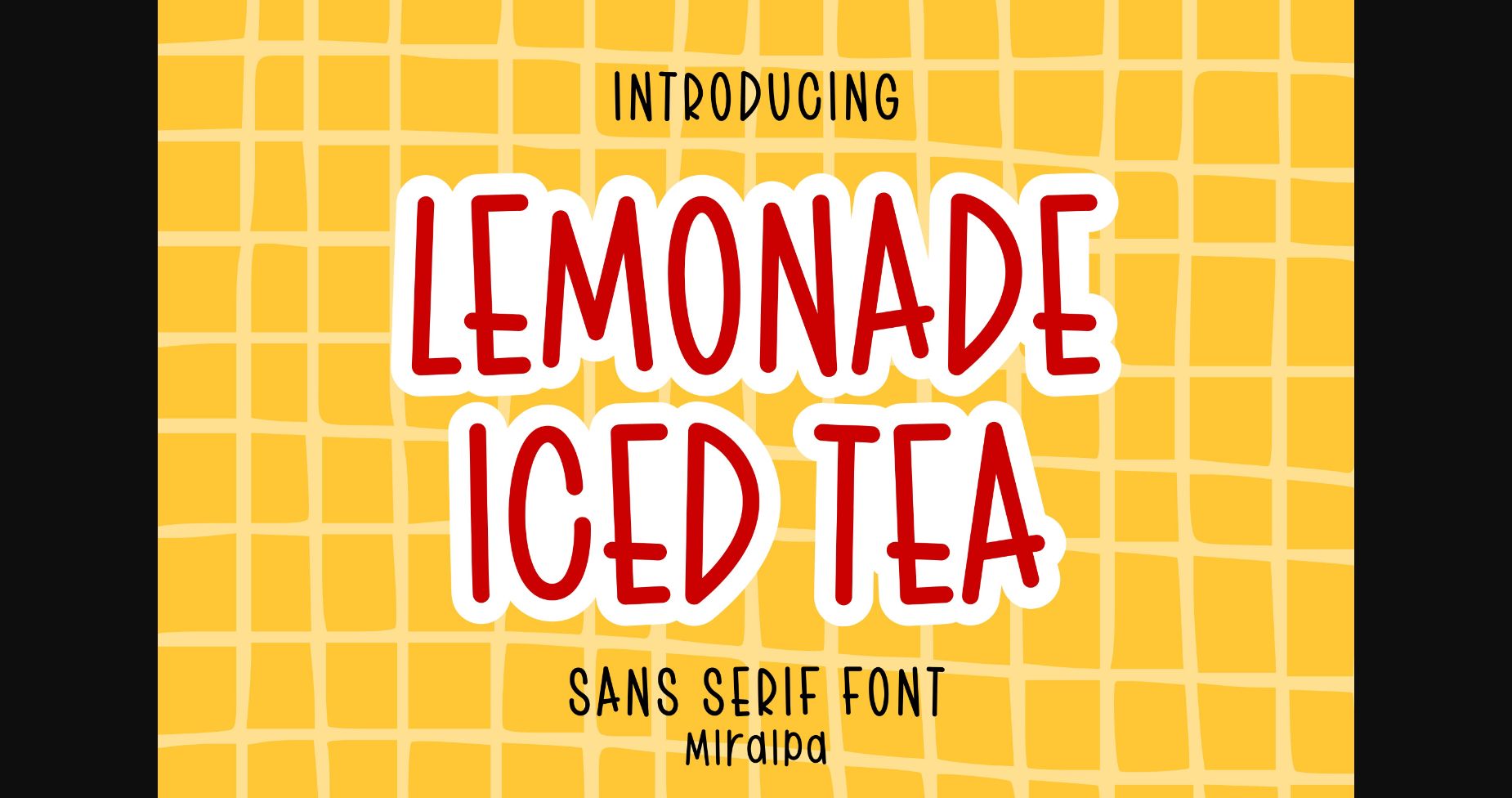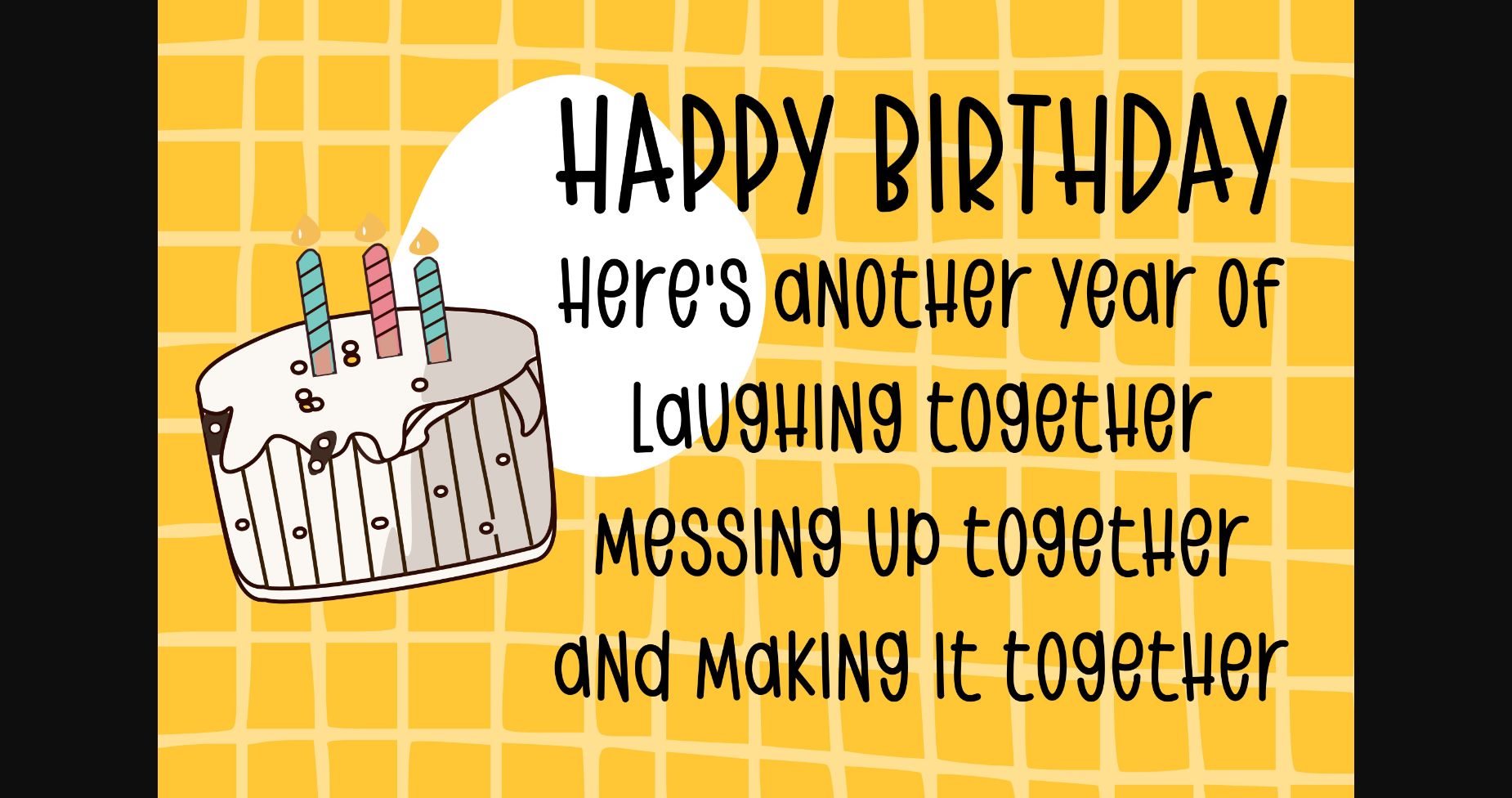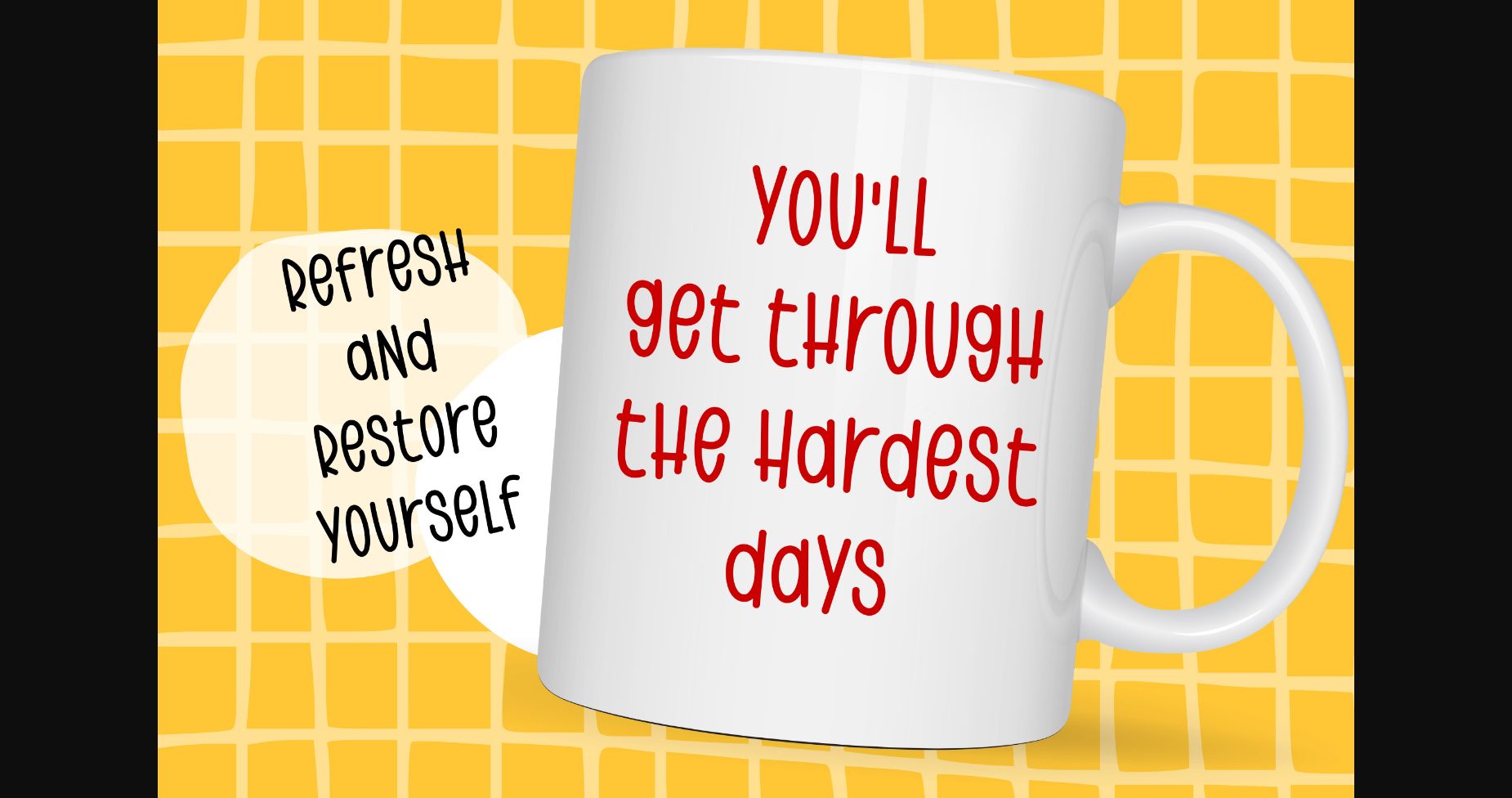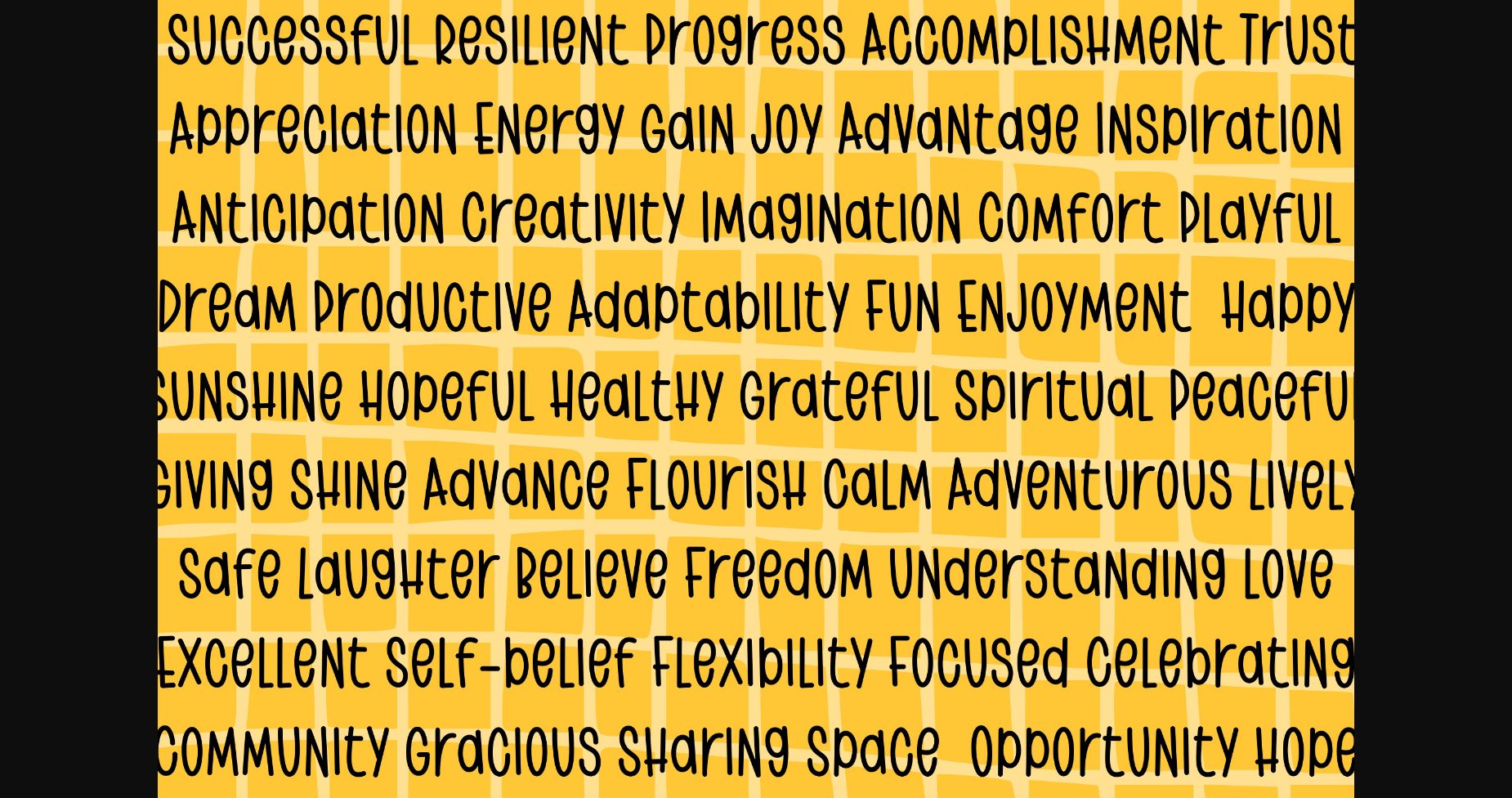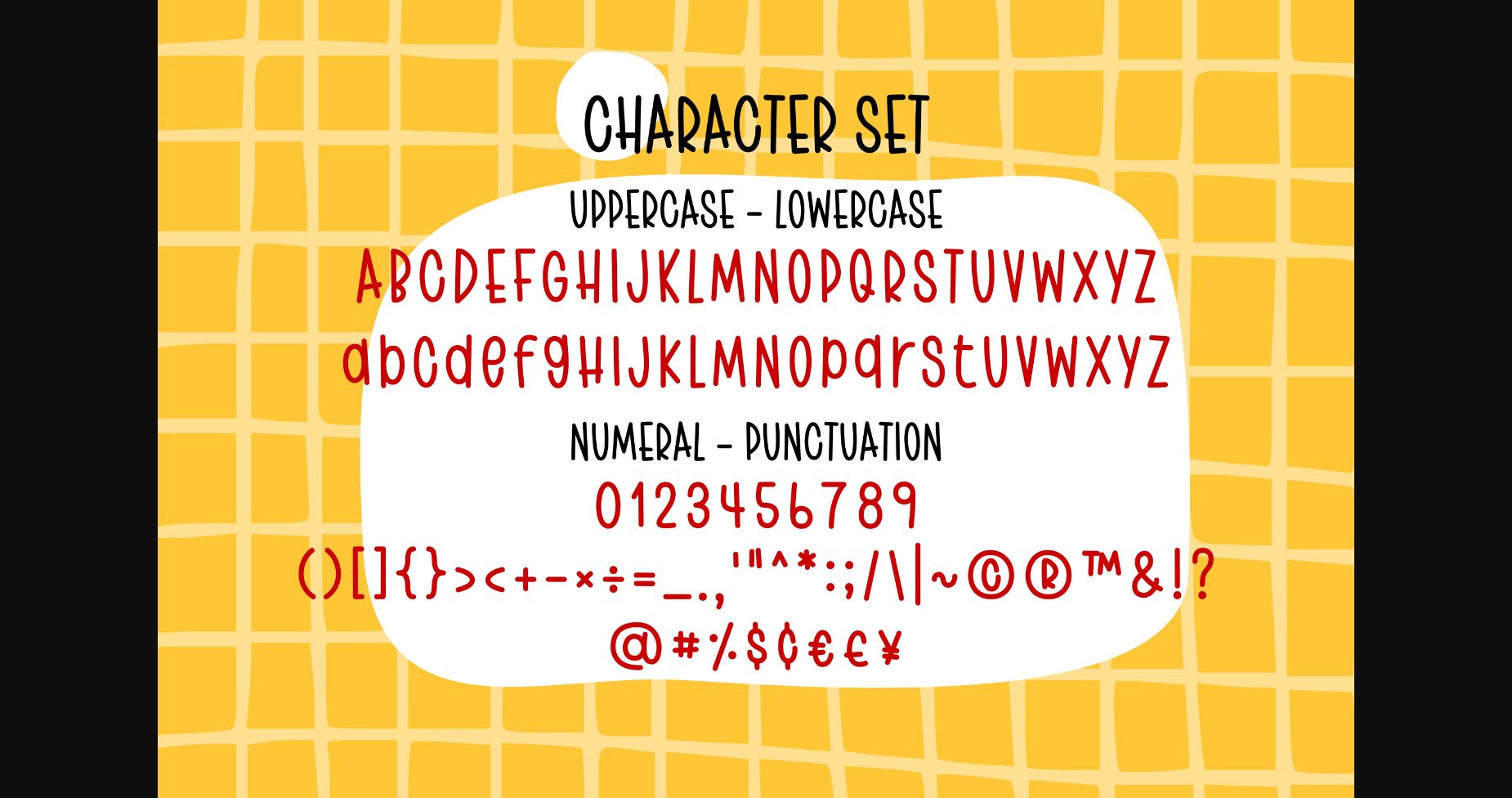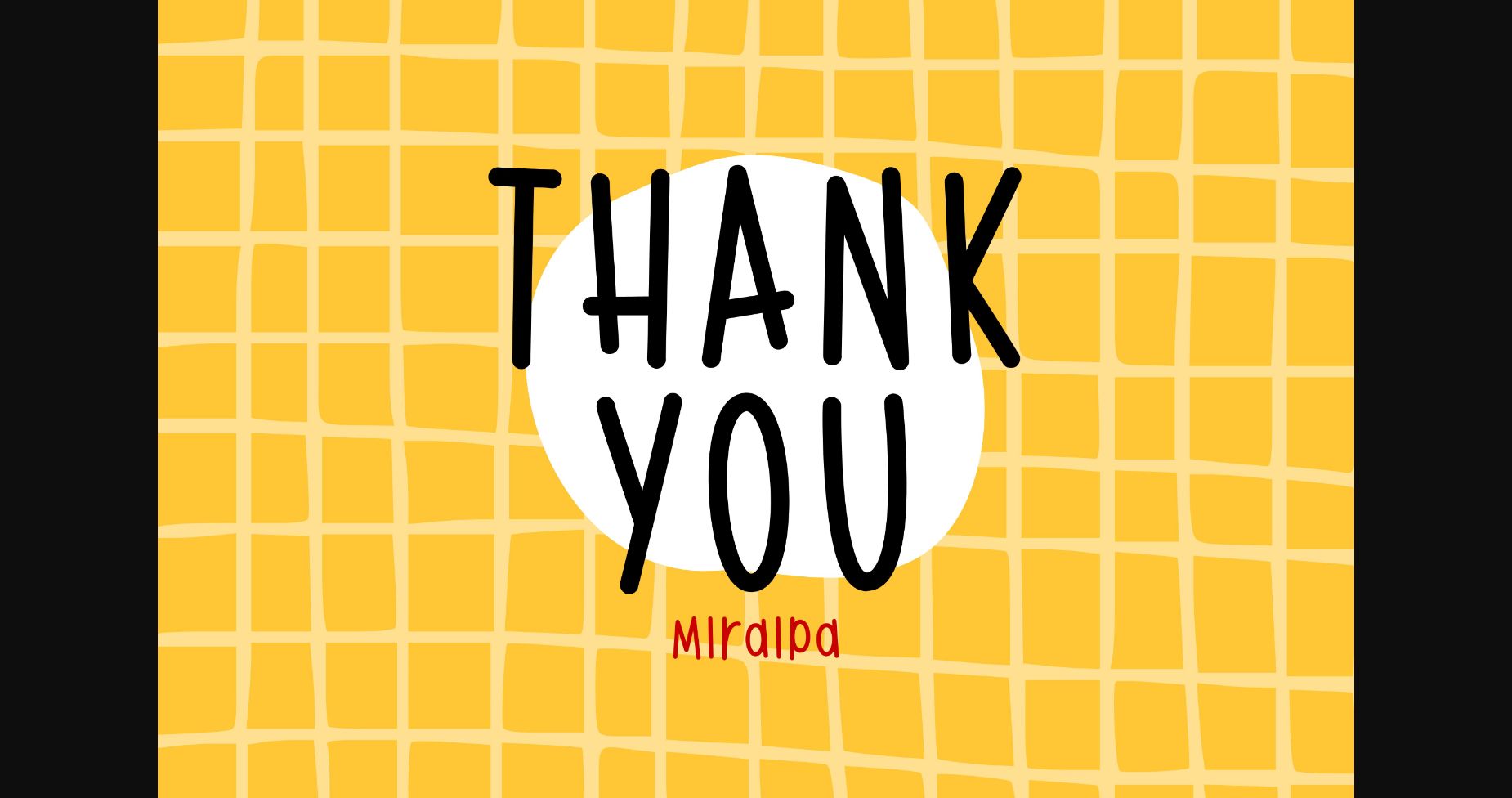
Lemonade Iced Tea Font
About Lemonade Iced Tea Font
Lemonade Iced Tea is designed in a cute and friendly handwritten sans serif font style. It would be awesome to your fun projects or diary planner. Try it out on your projects for Easter, back to school, weddings, party decorations, invitations and so much more!